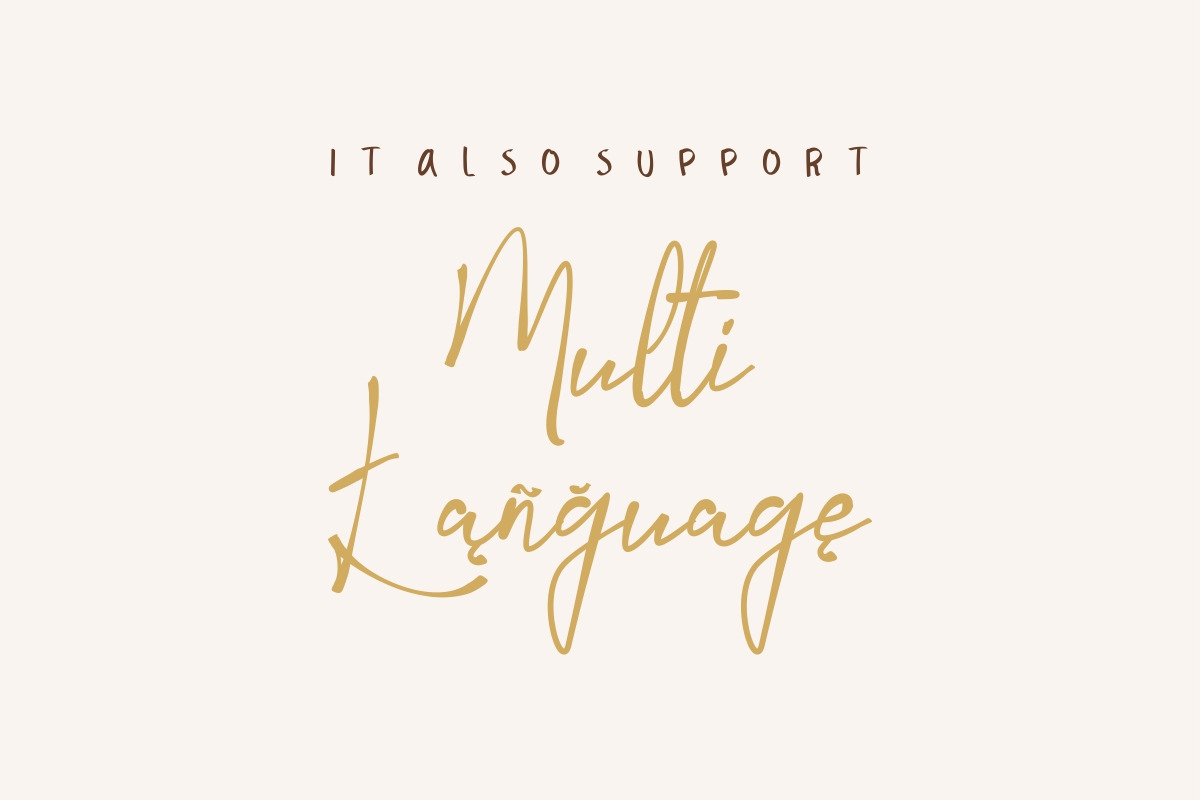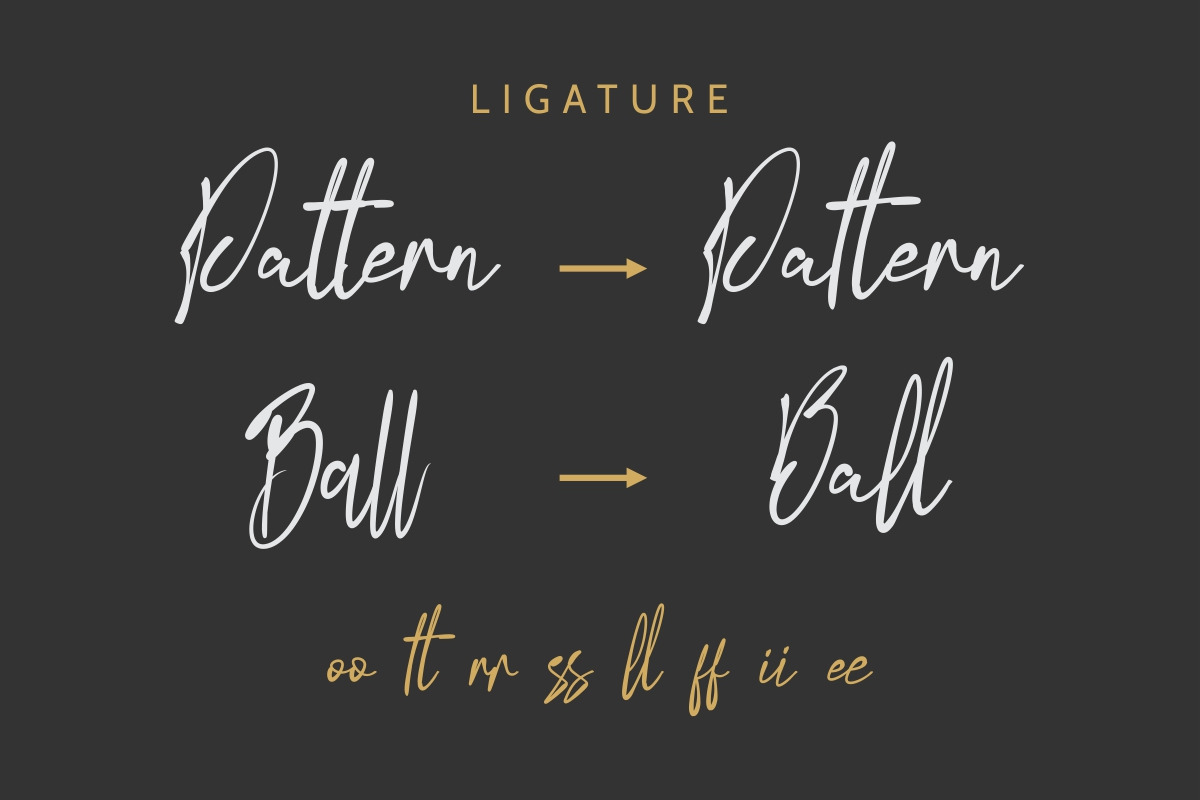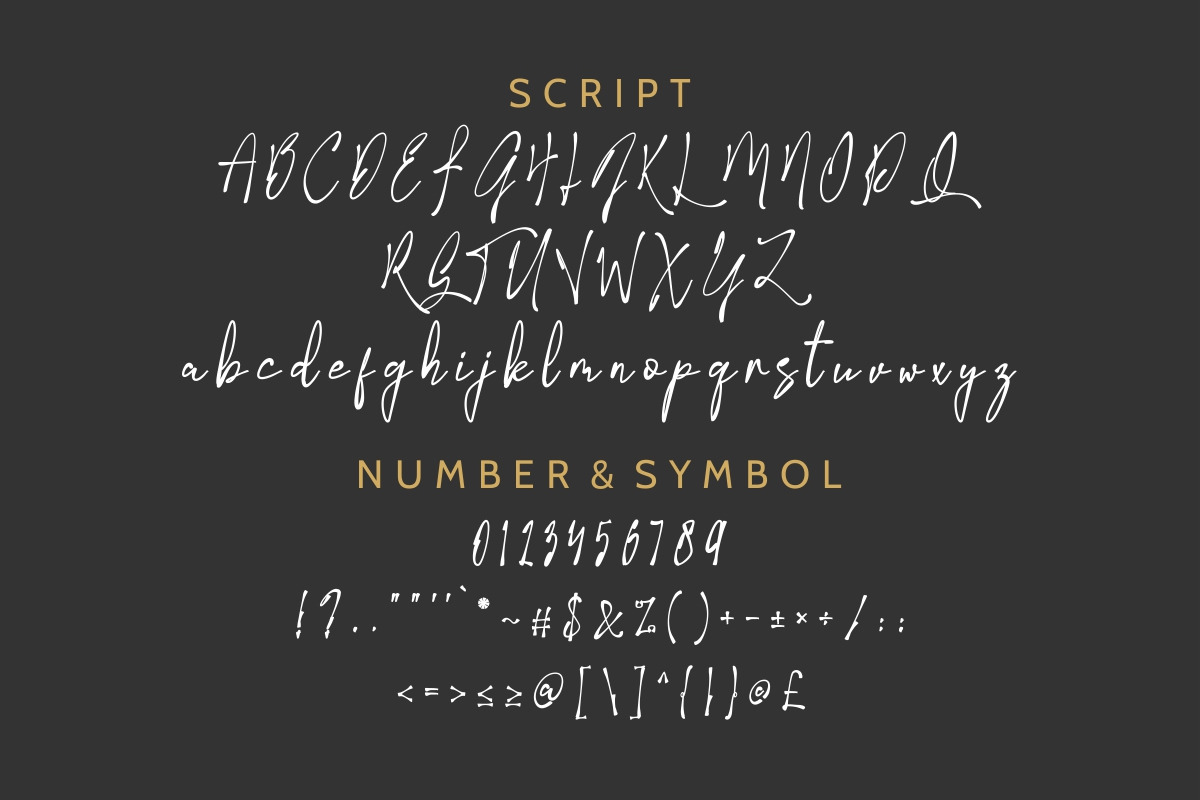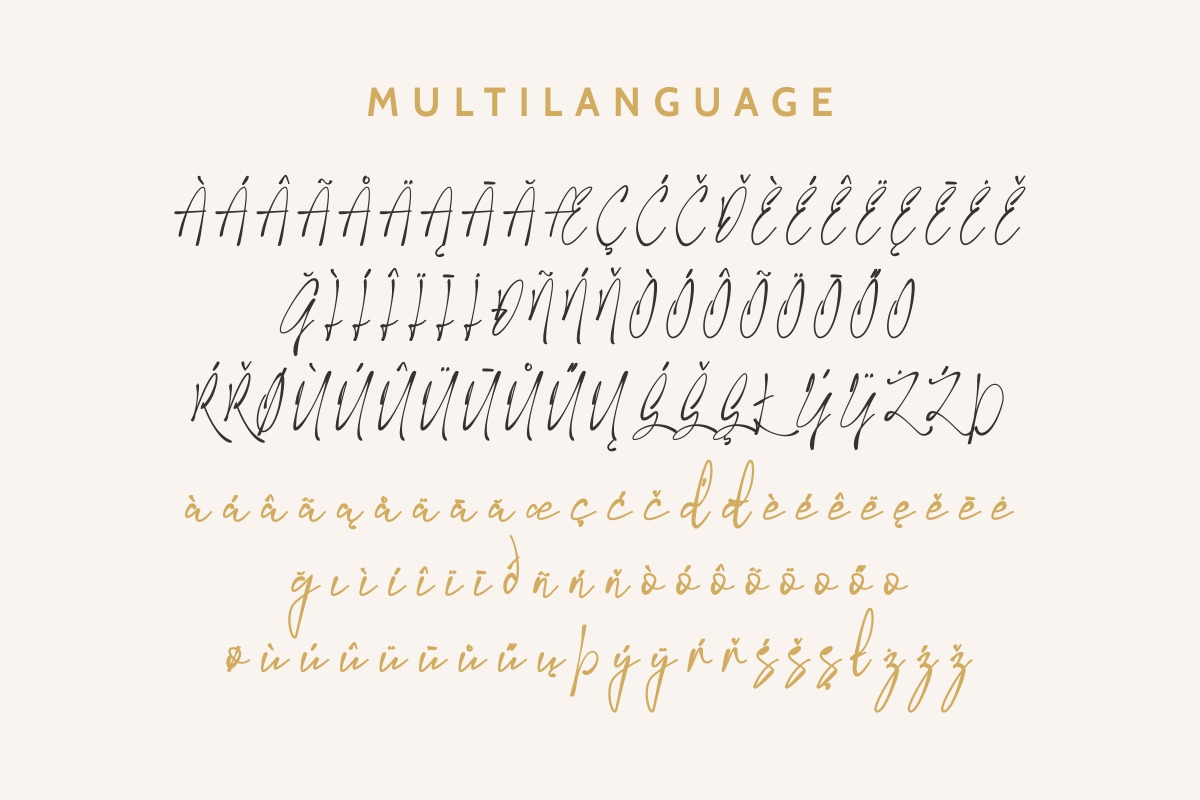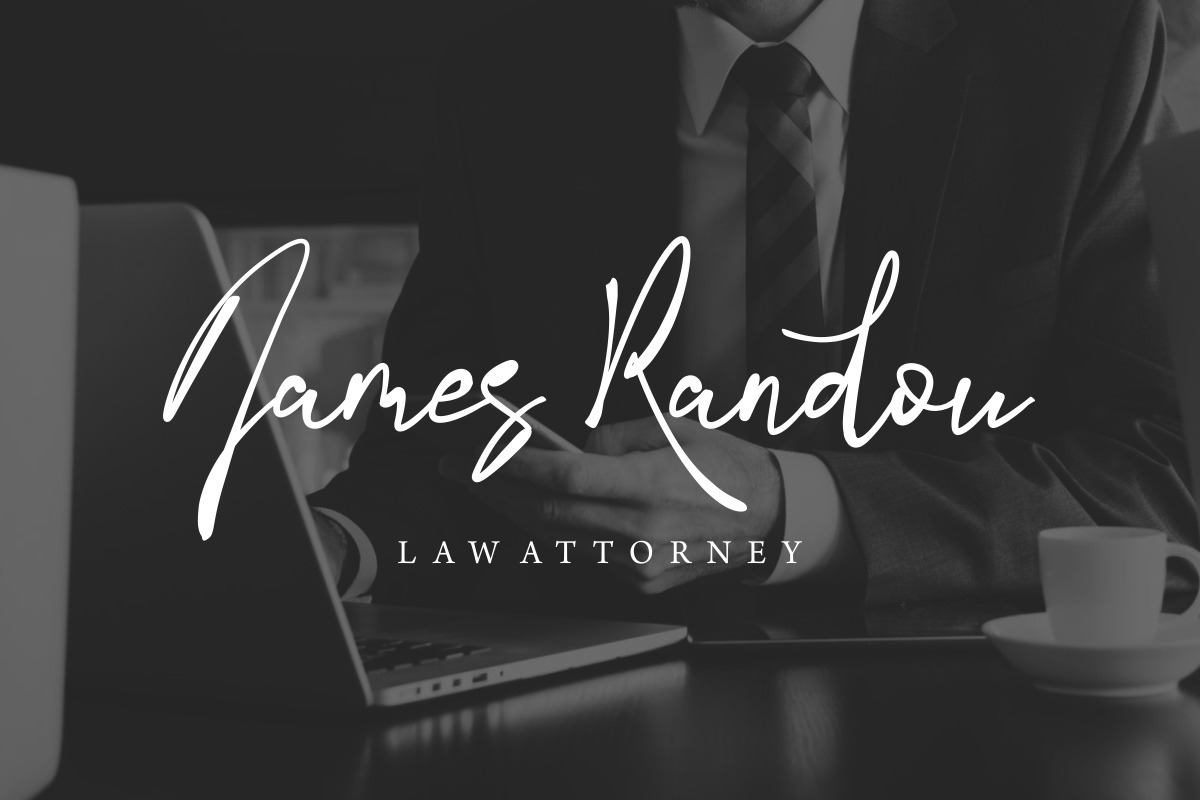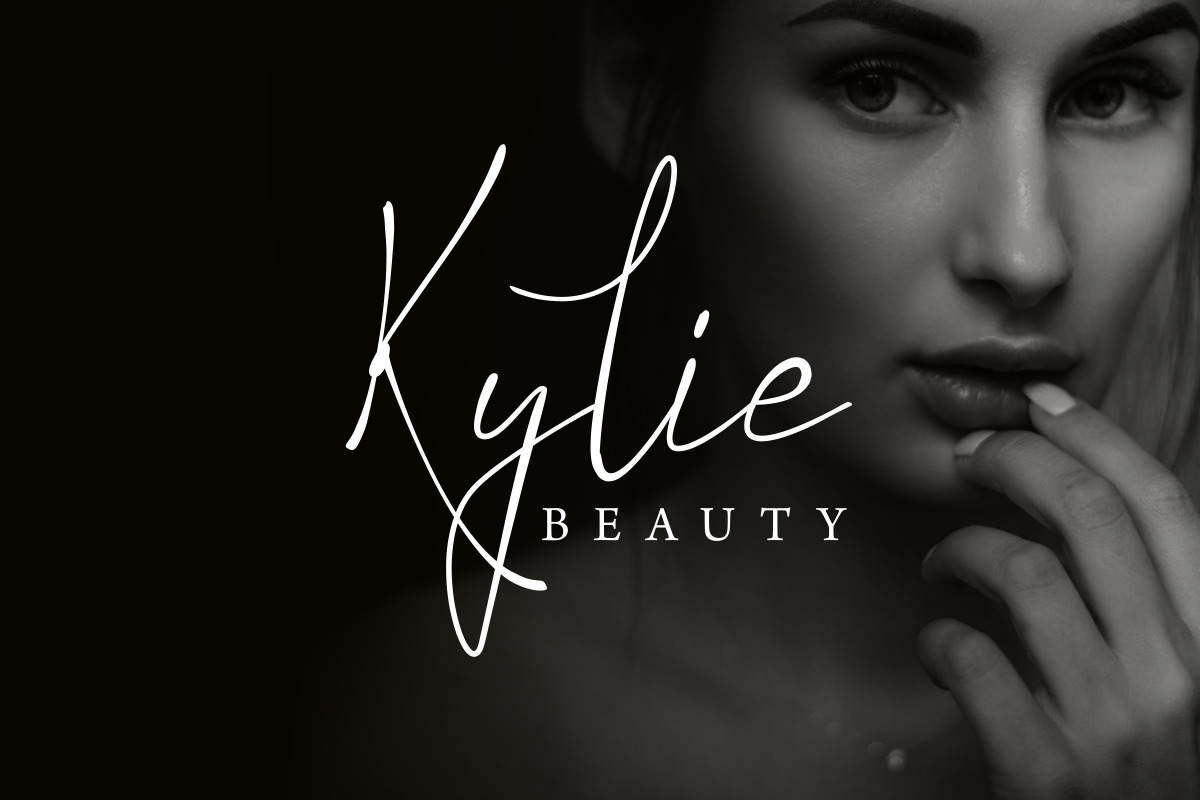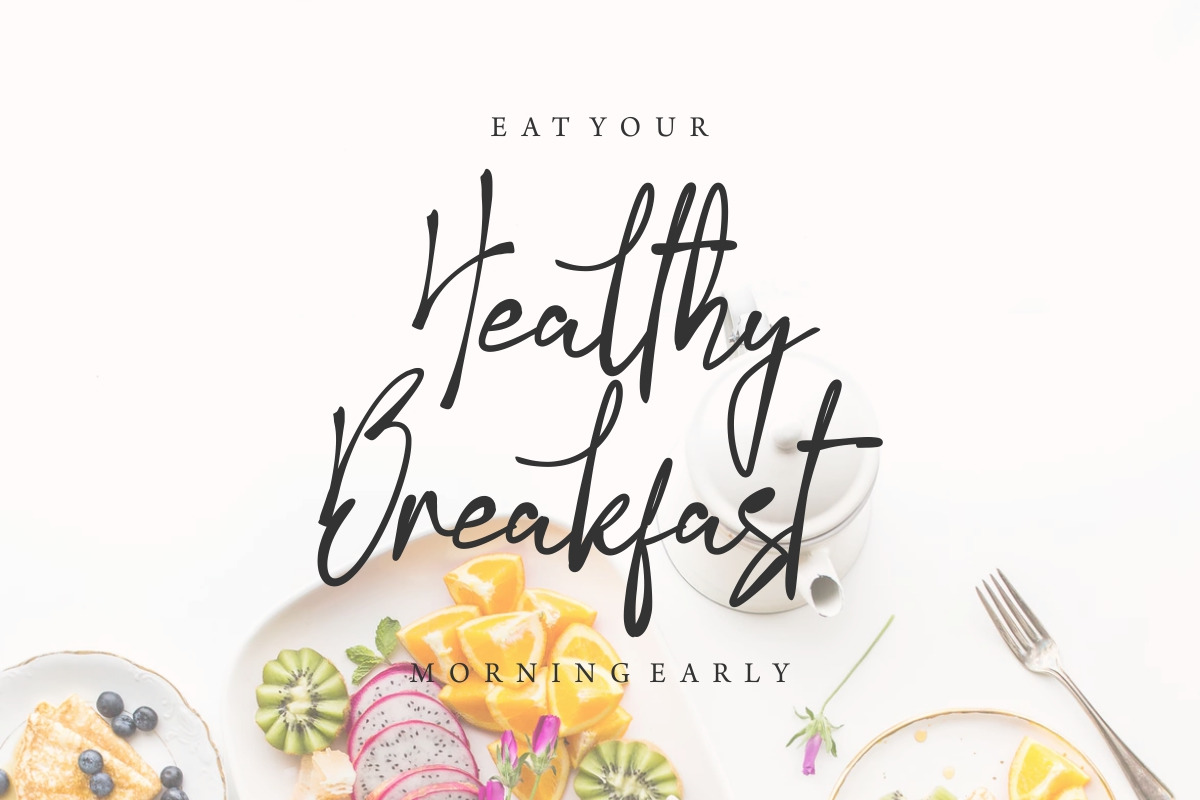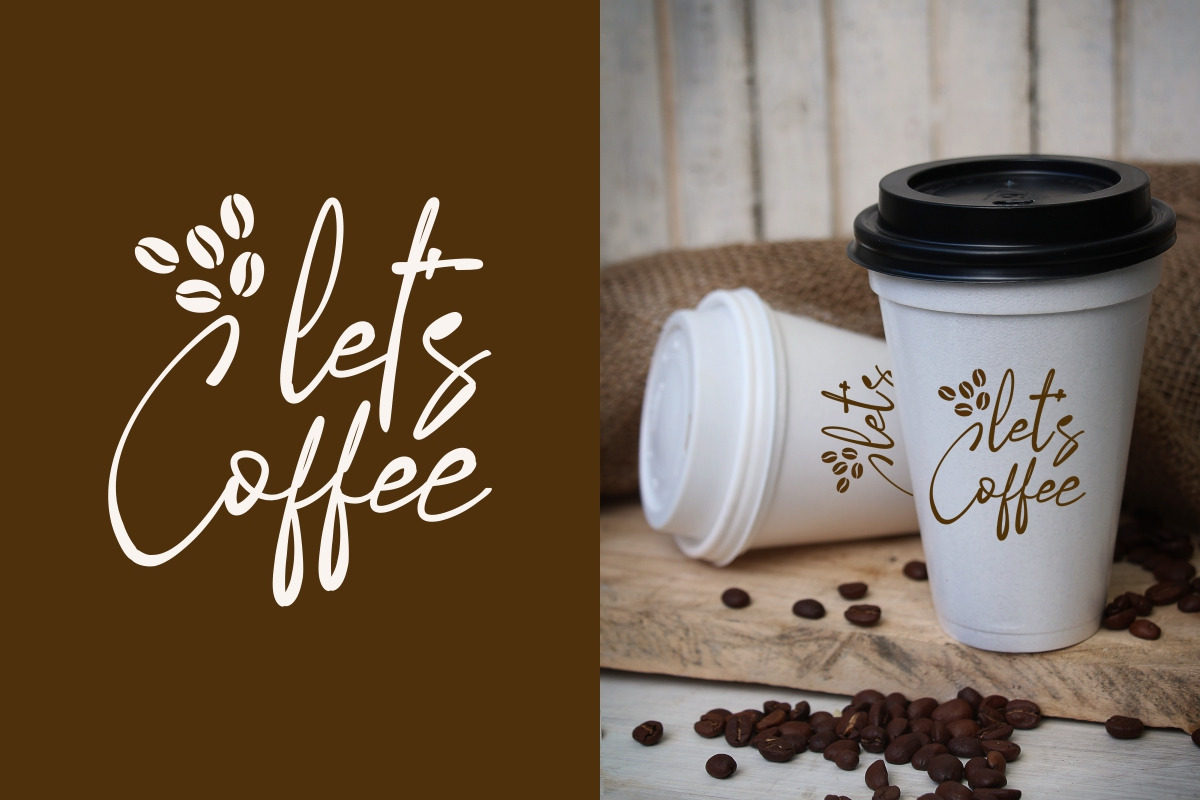
PancakeBatter Script Handwriting Font
Hi Everyone! Please welcome our newest font : Pancake Batter ! This is a new script handwriting signature style font with Alternative Glyph. Great for branding, logo, stationery, business card, signage, flyer, brochure etc. There are many industries that is suitable for this font : construction, real estate, photography, personal, wedding, law firm, chef etc